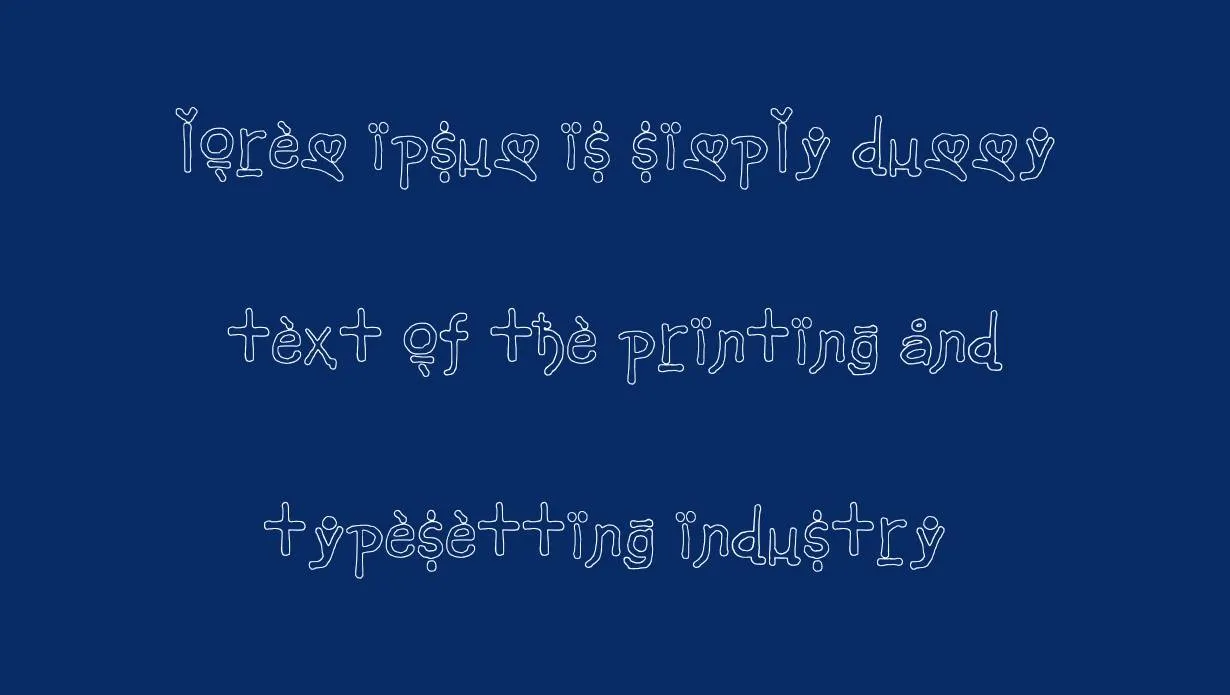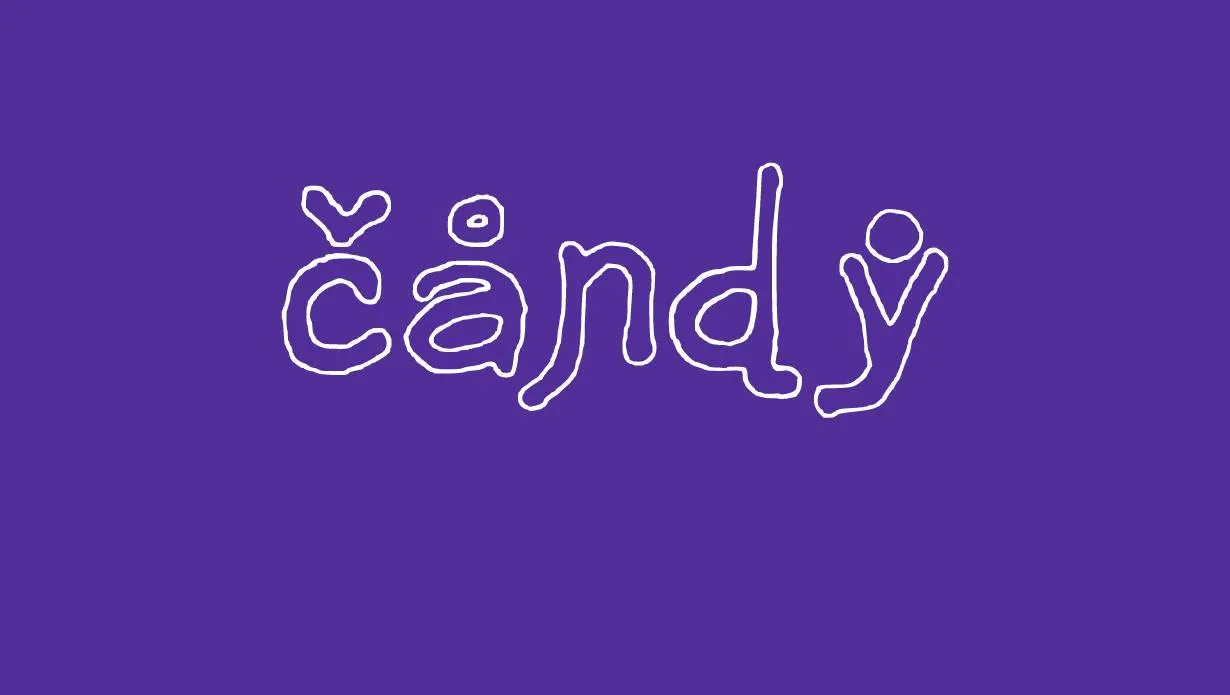
Crown Outline Font is a fancy font that was created by S. Evans and published by The Crown Is Mine along with TTF and OTF formats and an open font license for everyone.
This font also contains 267 characters in uppercase, lowercase, numbers, punctuations, symbols, signs, and some special characters that can make anything stand out and shine in the rest.
Crown Outline Font Family